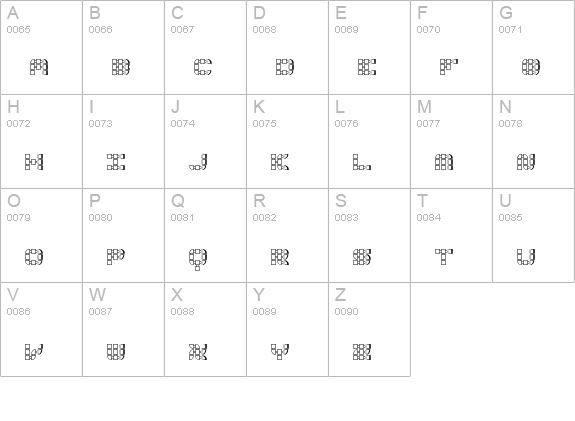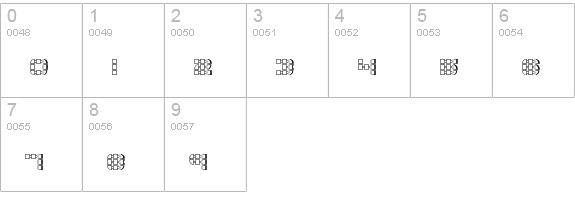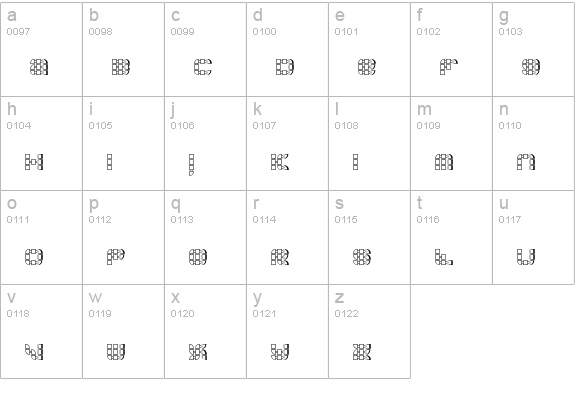
Konector O1 BRK font is a modern and stylish typeface that exudes professionalism and sophistication. Its sleek and bold letterforms make it perfect for a wide range of design projects, from branding to advertising to editorial layouts. The unique design elements of the font give it a contemporary edge while still maintaining a timeless appeal. One of the best things about Konector O1 BRK font is that it is completely free to download. This means that you can use this high-quality font in your projects without any cost, making it an excellent choice for designers on a budget or anyone looking to add a touch of elegance to their work without breaking the bank. You can easily access and download Konector O1 BRK font for free at FontsMarket.com, where it is available for instant download. Whether you are working on a print project, a website design, or any other creative endeavor, Konector O1 BRK font is sure to elevate your work with its sleek and professional appearance. Don't miss out on this fantastic free font – download Konector O1 BRK today and take your designs to the next level!